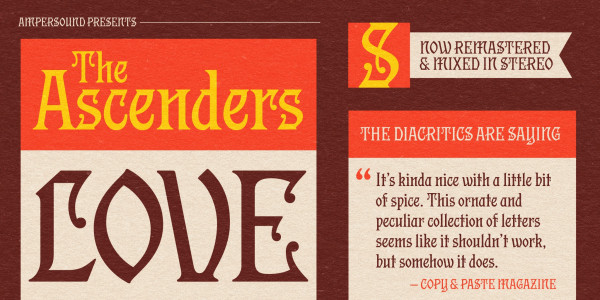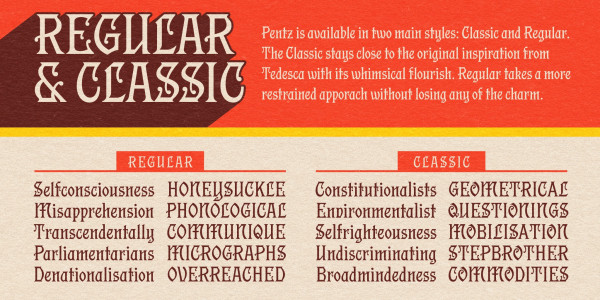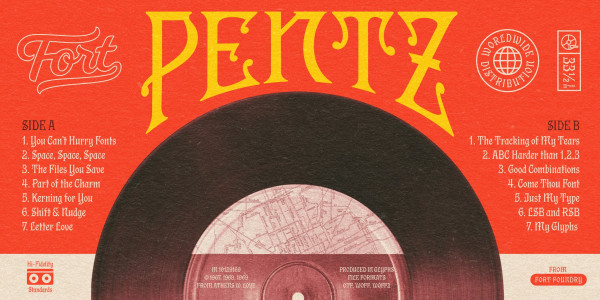
Pentz Font Family
Pentz Font Family, the album title was set in Tedesca, but the cover designer, Curtis McNair, took some nice liberties in adjusting the letterforms when setting the type. Pentz continues in this theme, reviving Tedesca (originally designed in the late 19th century), but adding some of our own stylistic flair. We’ve made it available in two main styles: Classic and Regular. Classic is more faithful to the original, while Regular is reimagined and restrained at times without losing any of the charm. This whole project felt like a dream come true as I grew up in a house filled with Motown songs courtesy of my mom.